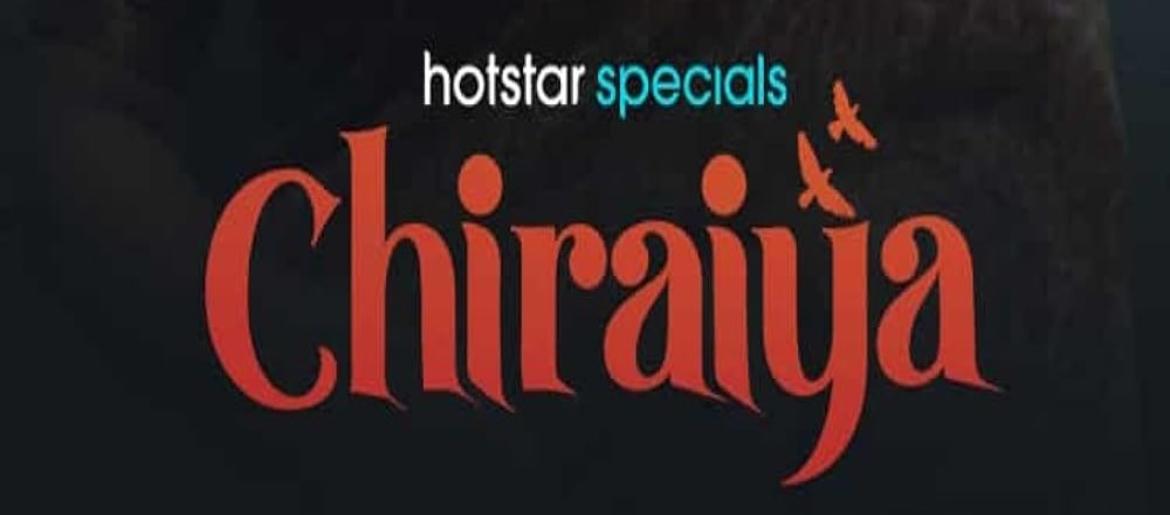
Chiraiya Font
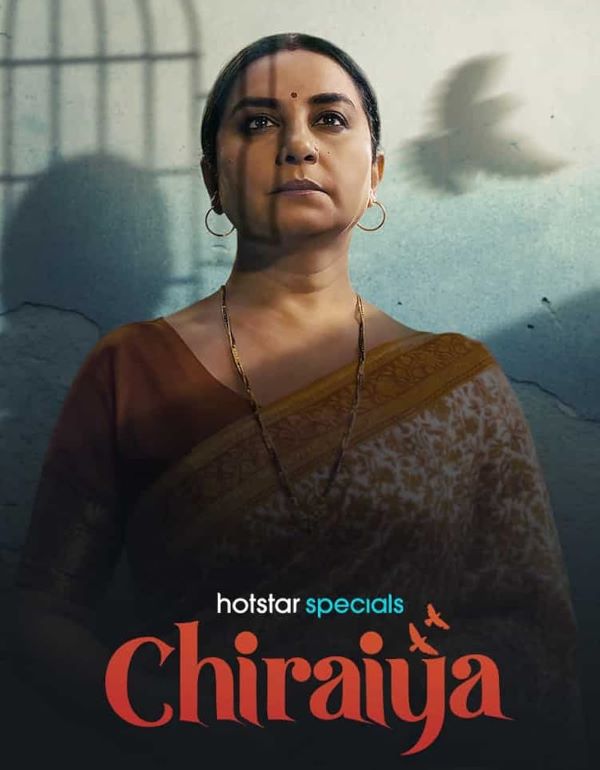
The Chiraiya Font used in the movie’s title design is Black Quality, a typeface by Alit Design. It is a decorative serif display font featuring elegant curves, high contrast strokes, and ornamental details that create a dramatic, emotional, and cinematic visual identity. The refined yet bold letterforms give the title a strong presence, making it suitable for intense storytelling and character-driven narratives. Black Quality is available for free download, making it a practical choice for fan art, posters, and design projects inspired by the film.
About Chiraiya
Chiraiya is a 2026 drama film centered on Kamlesh, a devoted wife and daughter-in-law whose life is shaken when her new sister-in-law reveals a disturbing secret about her wedding night. As hidden truths surface, Kamlesh is forced to confront deep family tensions and uncomfortable realities. The film explores themes of trust, silence, and emotional conflict, supported by expressive visuals and impactful typography.